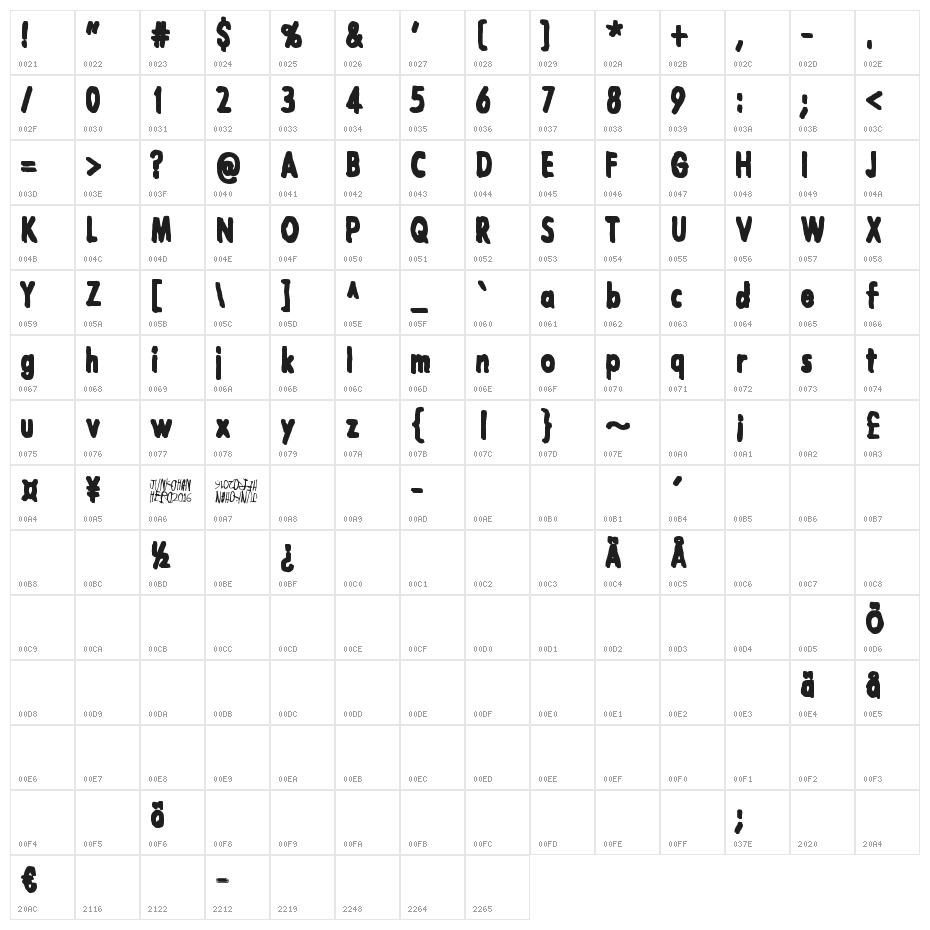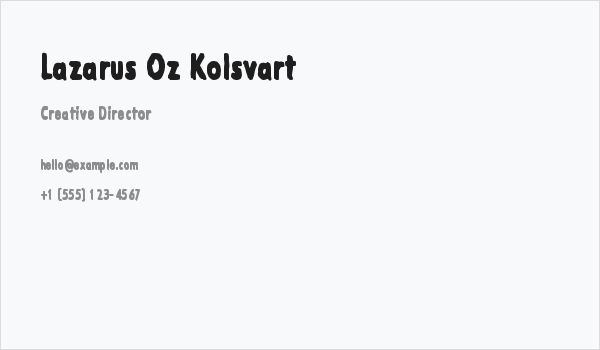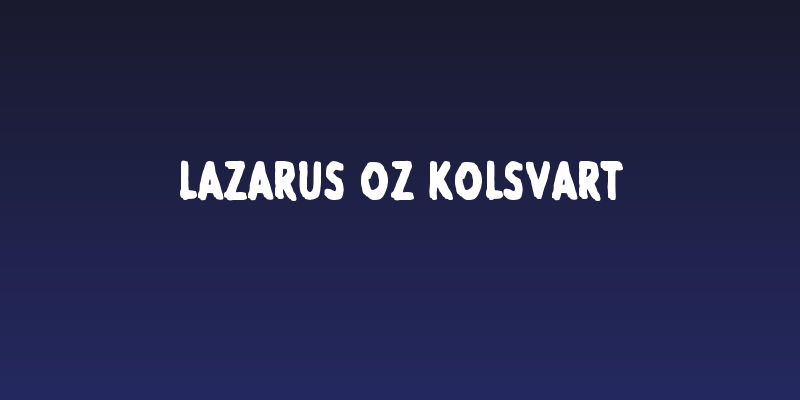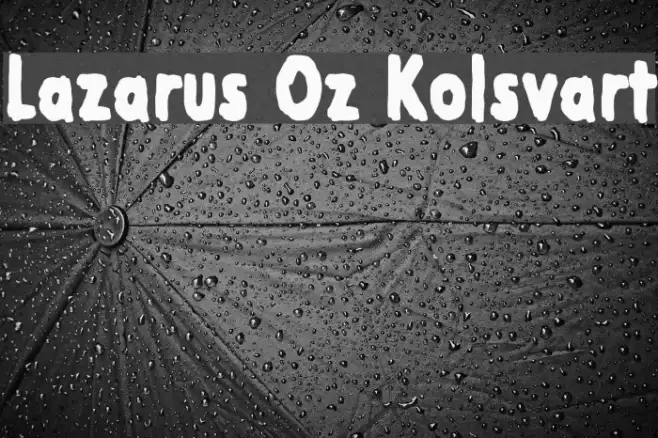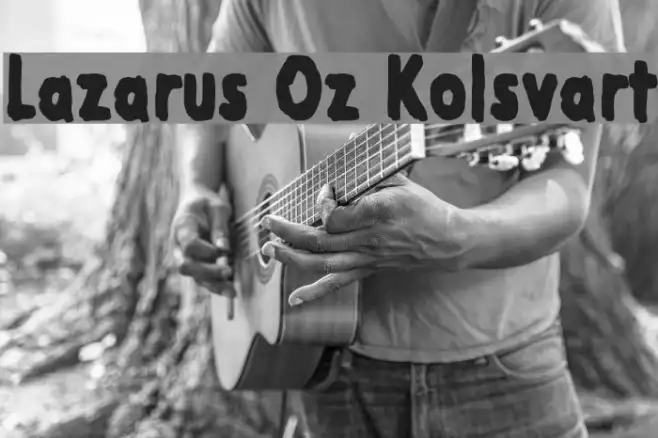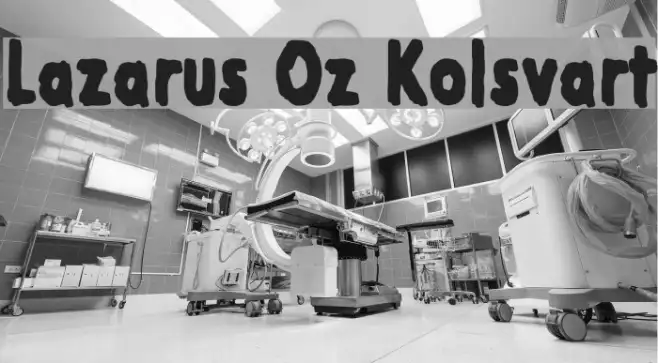
Lazarus Oz Kolsvart Font
Lazarus Oz Kolsvart Description
This font features a bold and playful style with a hand-drawn appearance. The characters are thick and rounded, giving them a friendly and approachable look. The uppercase and lowercase letters maintain a consistent weight, contributing to a cohesive design. The numbers and special characters follow the same aesthetic, ensuring uniformity across all elements. The font's organic shapes and slightly irregular edges add a touch of whimsy, making it suitable for creative and informal projects.
| Proposed Projects | Ideal for children's books, playful branding, posters, and creative social media graphics. |